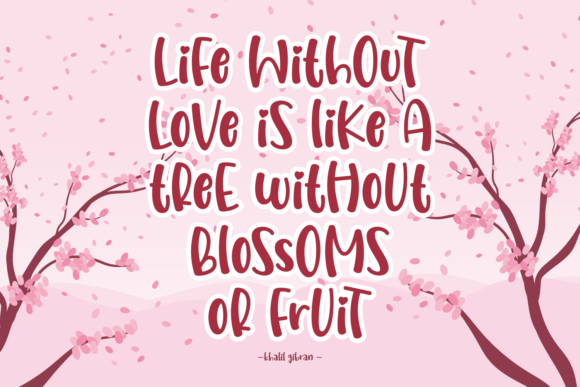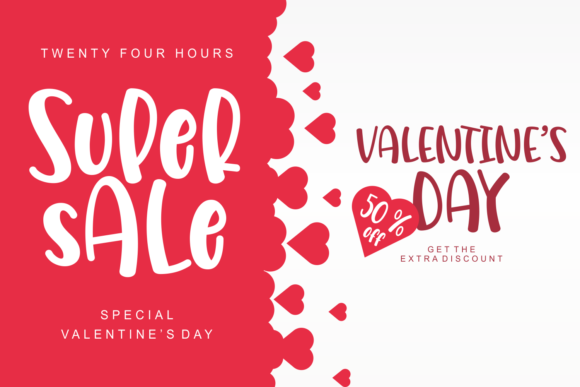
Juliante Font
db-ku.com - Script & Handwritten -- Juliante is a romantic and bold handwritten font featuring characters that beautifully complement each other. It is quirky and fun, perfect for an outstanding result! This font is PUA encoded, which means you can access all of the glyphs and swashes with ease!